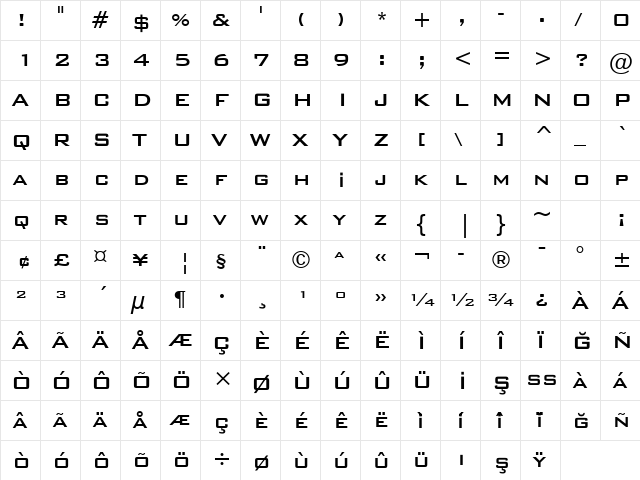
TrSah BankGothic Md BT Medium
Design Context for TrSah BankGothic Md BT Typeface
TrSah BankGothic Md BT takes a clean, functional approach — its unadorned letterforms prioritise legibility and work reliably across screen and print environments.
Font Pairing: Works well alongside a characterful serif or display font that can carry the expressive load while TrSah BankGothic Md BT handles the functional copy.
Pro Tip: Pair TrSah BankGothic Md BT with a display or serif font for headlines — its neutral character makes it an excellent supporting player in complex typographic systems.